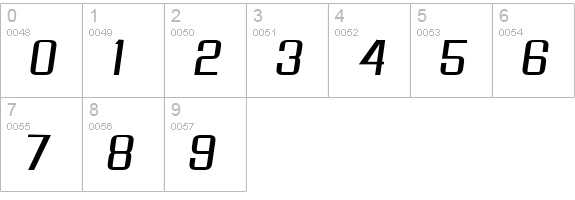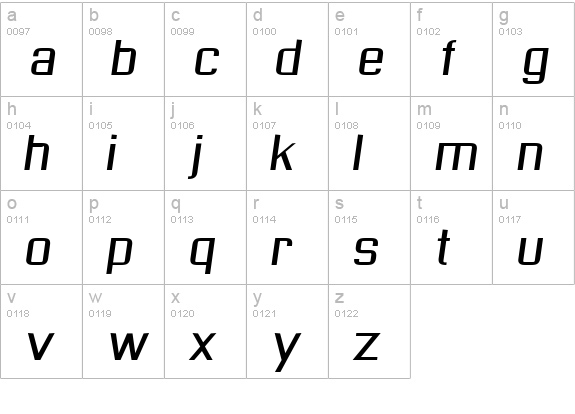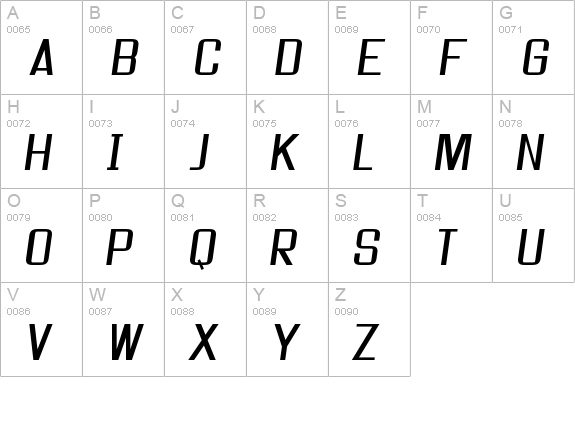
As seen on TV Skew Font Details
Introducing the captivating As seen on TV Skew font, a visually stunning typeface that is sure to make your designs stand out from the crowd. This unique font features a distinct skew effect that adds a dynamic and modern touch to any project. Whether you're looking to create eye-catching titles, posters, or branding materials, this font is the perfect choice. Best of all, the As seen on TV Skew font is available for free download at FontsMarket.com. With just a few clicks, you can add this versatile font to your collection and start using it in your designs right away. Don't miss out on the opportunity to enhance your projects with this one-of-a-kind font. Download the As seen on TV Skew font today and unleash your creativity!